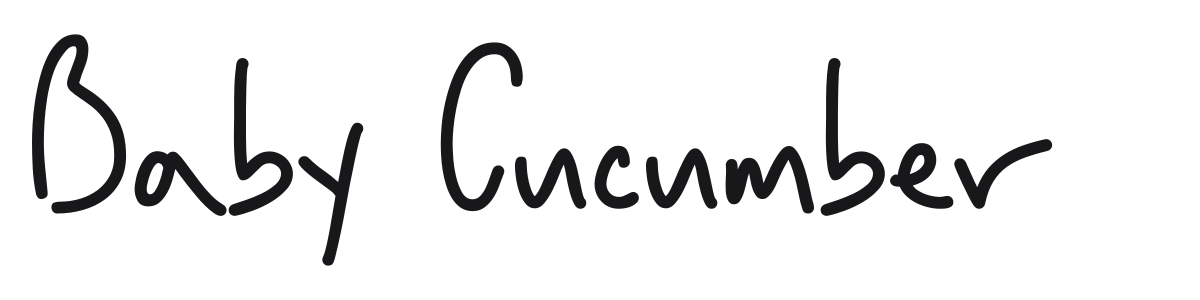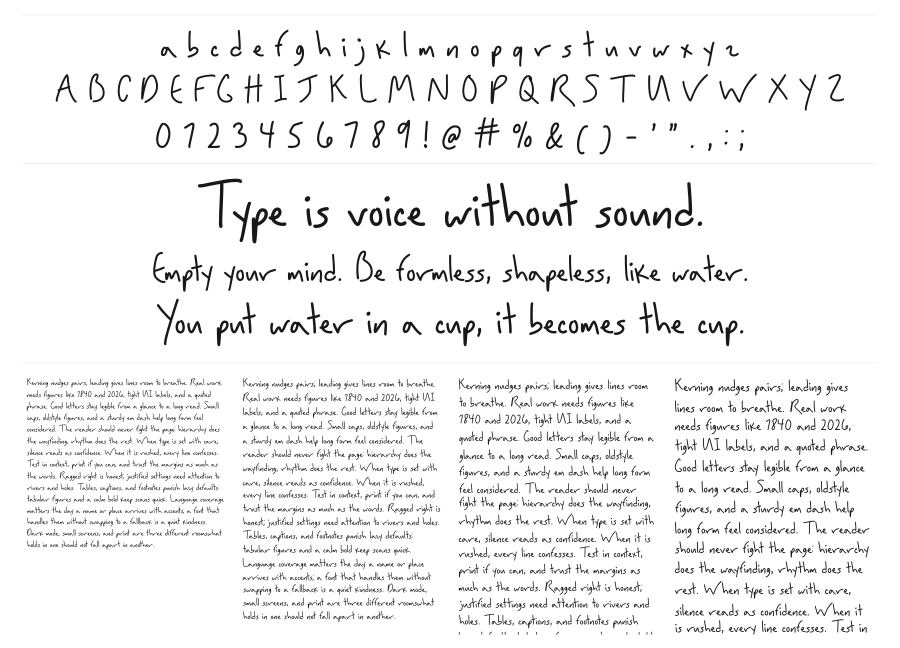
Baby Cucumber
Baby Cucumber is a casual handwritten font with a bouncy, free-spirited rhythm that feels like it was written quickly with a marker. The irregular baseline and rounded strokes give it genuine spontaneity rather than a polished calligraphic look. It works well anywhere a design needs warmth and personality without taking itself too seriously.